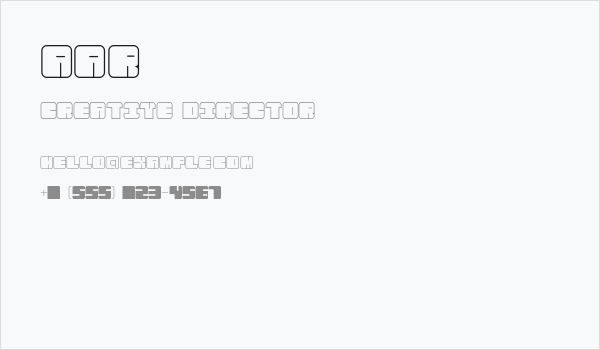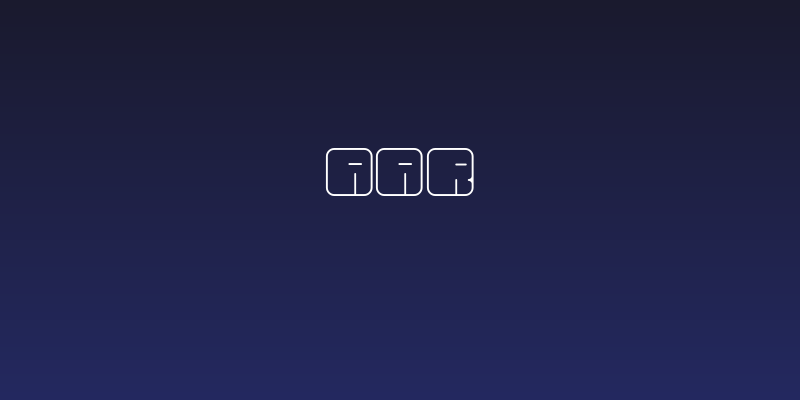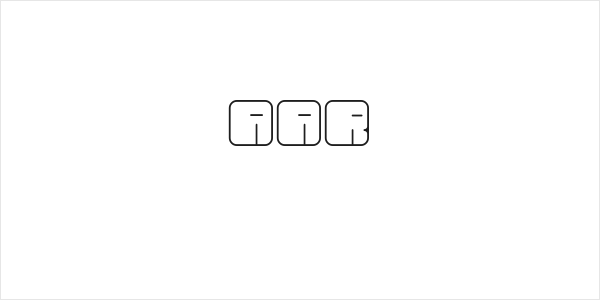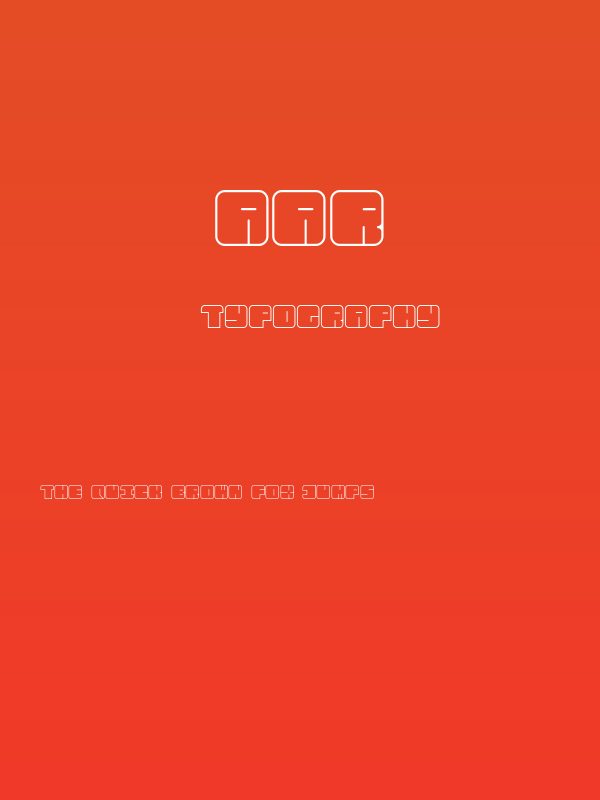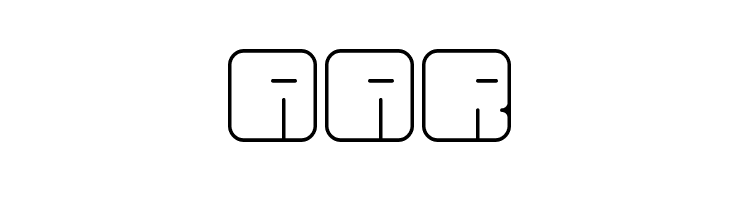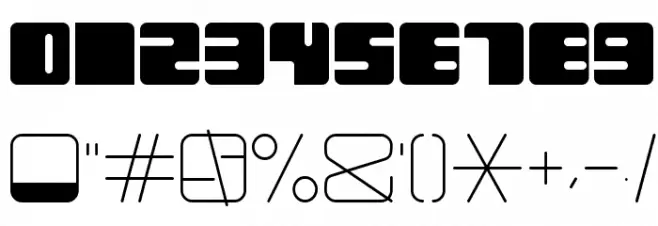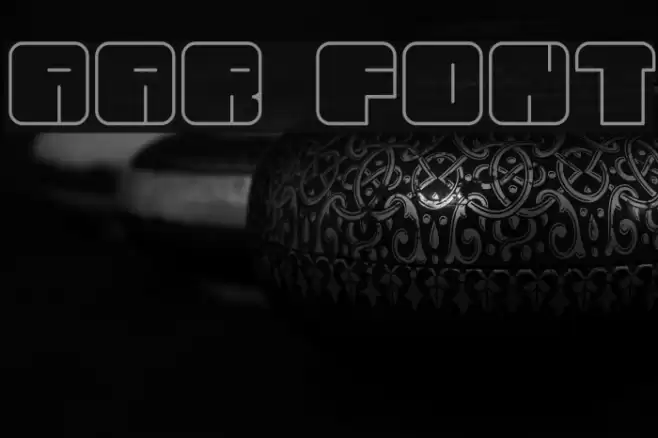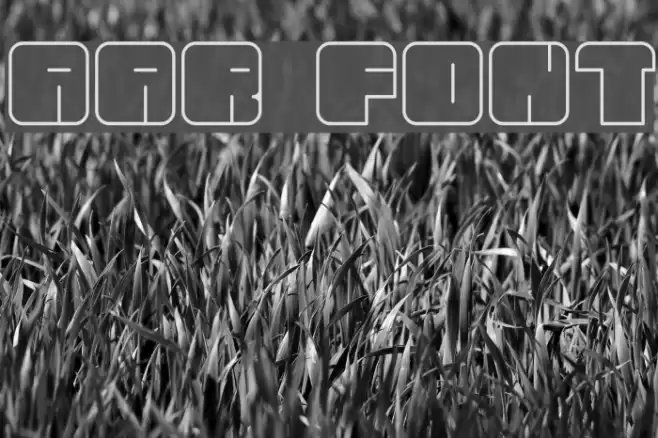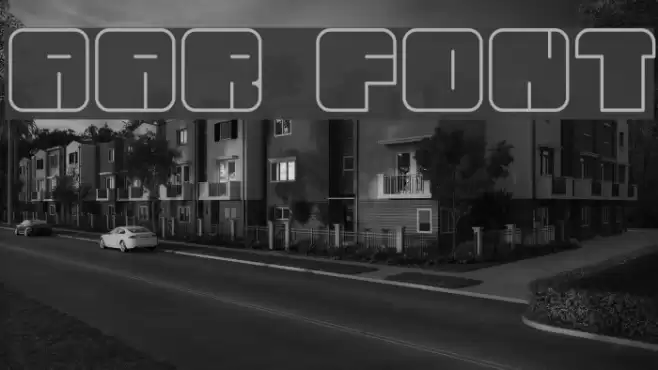
AAR Font
AAR Description
This font features a unique, futuristic design with rounded edges and a hollow interior, giving it a distinctive, modern appearance. The uppercase letters are bold and geometric, with a consistent stroke width that creates a uniform look. The numbers are solid, contrasting with the outlined letters, adding a playful yet structured element to the overall design. Special characters maintain the same style, ensuring cohesion across all glyphs. This font is ideal for projects that require a contemporary and eye-catching aesthetic.
| Proposed Projects | Perfect for sci-fi themed designs, tech branding, modern posters, and innovative product packaging. |